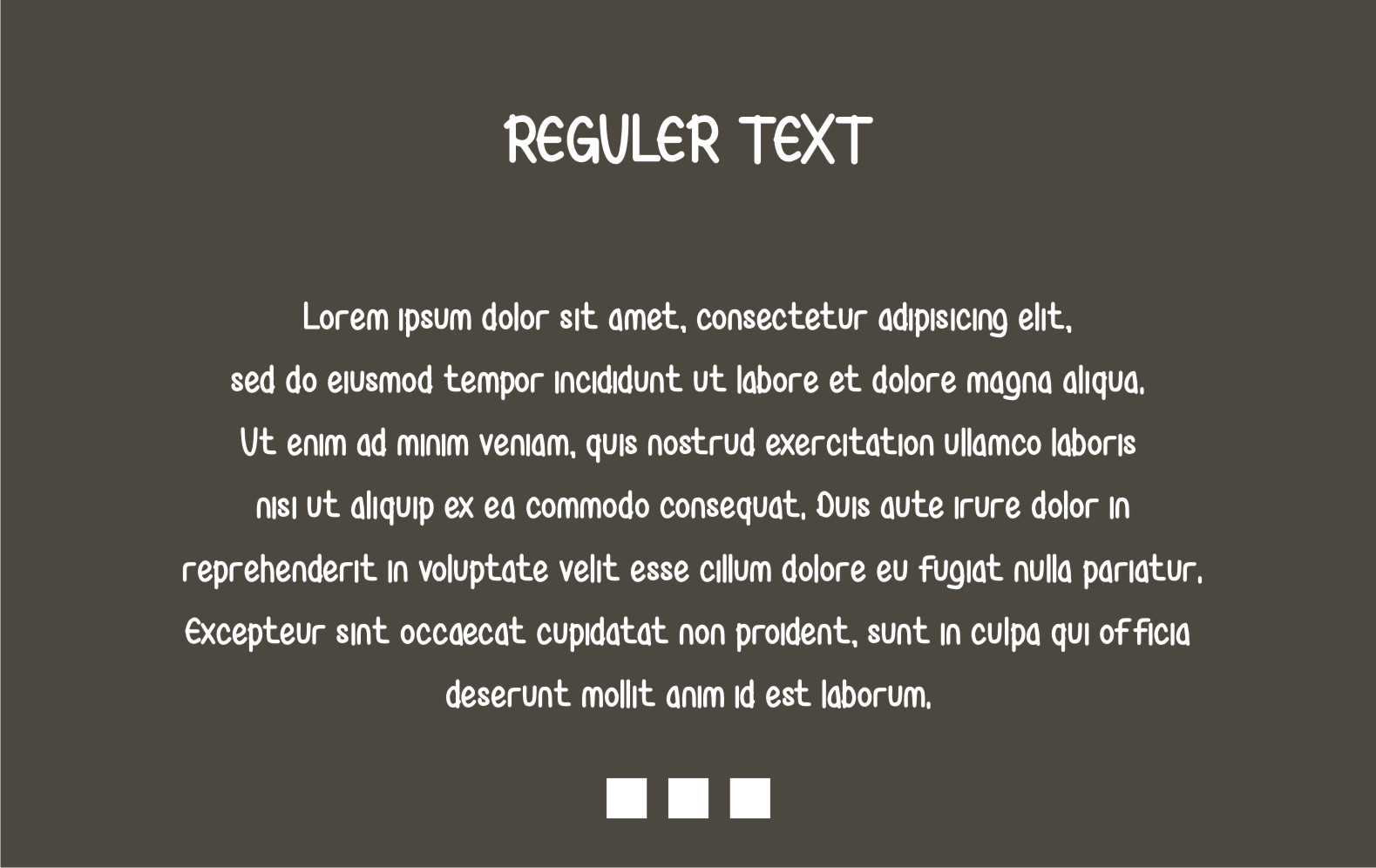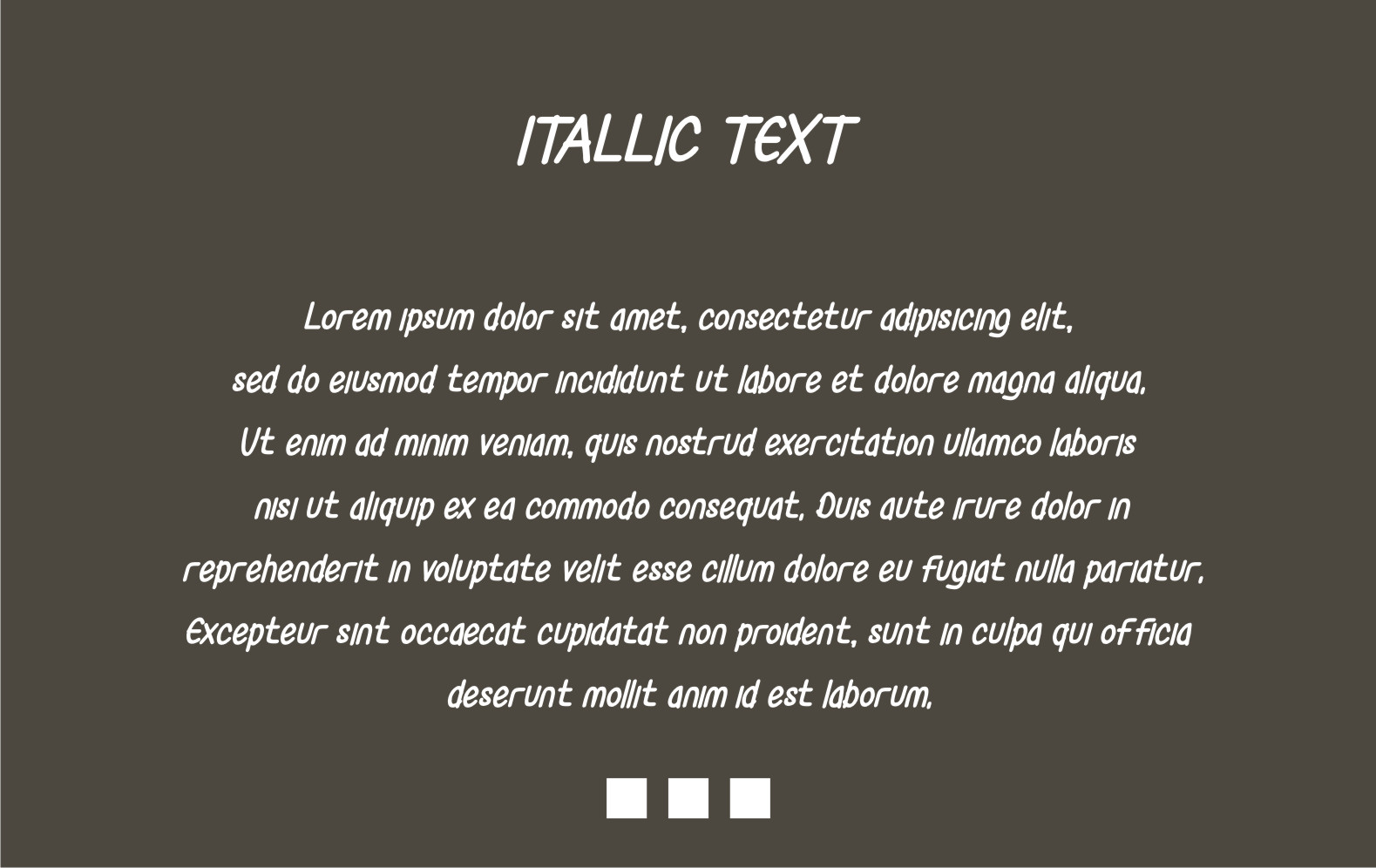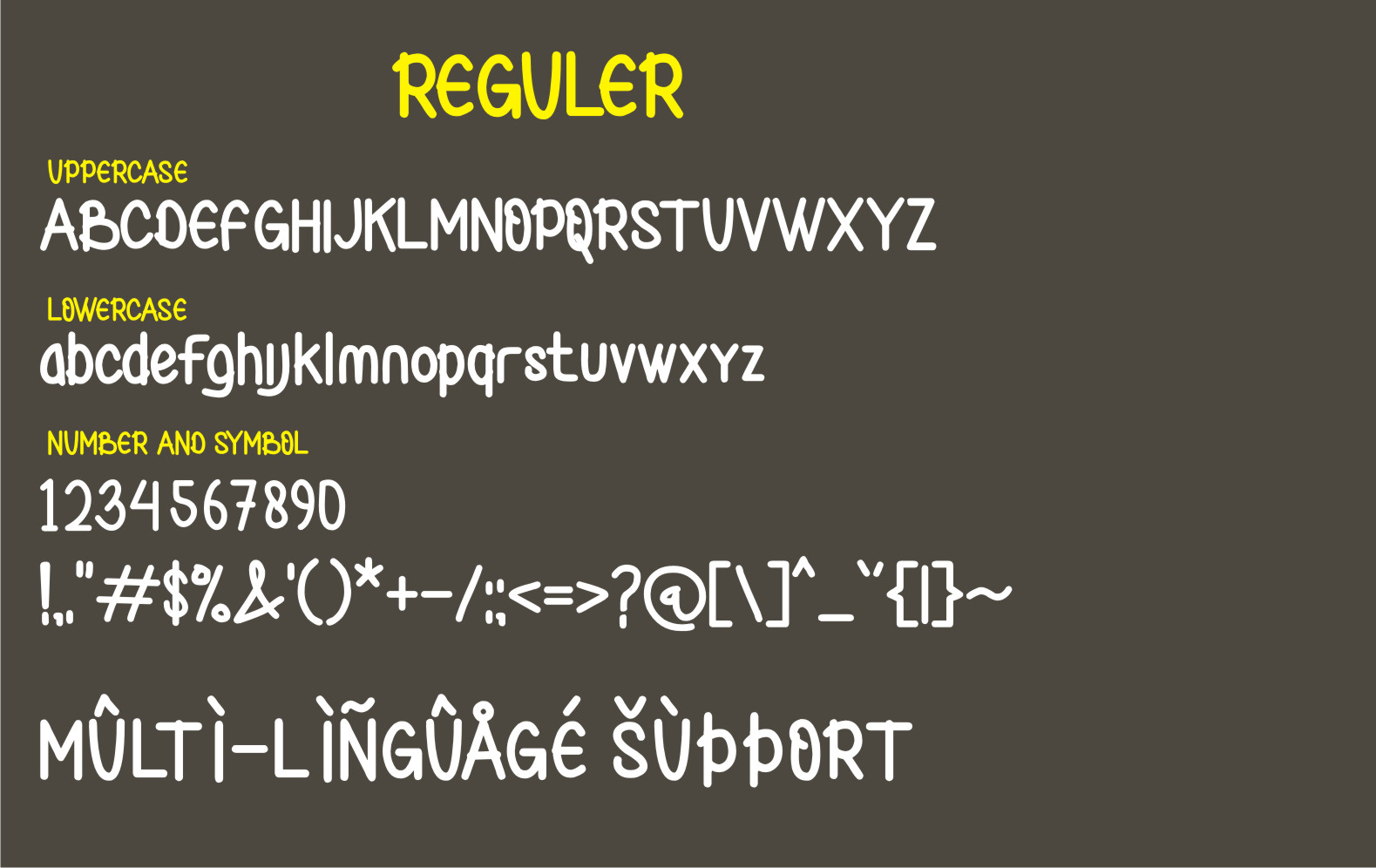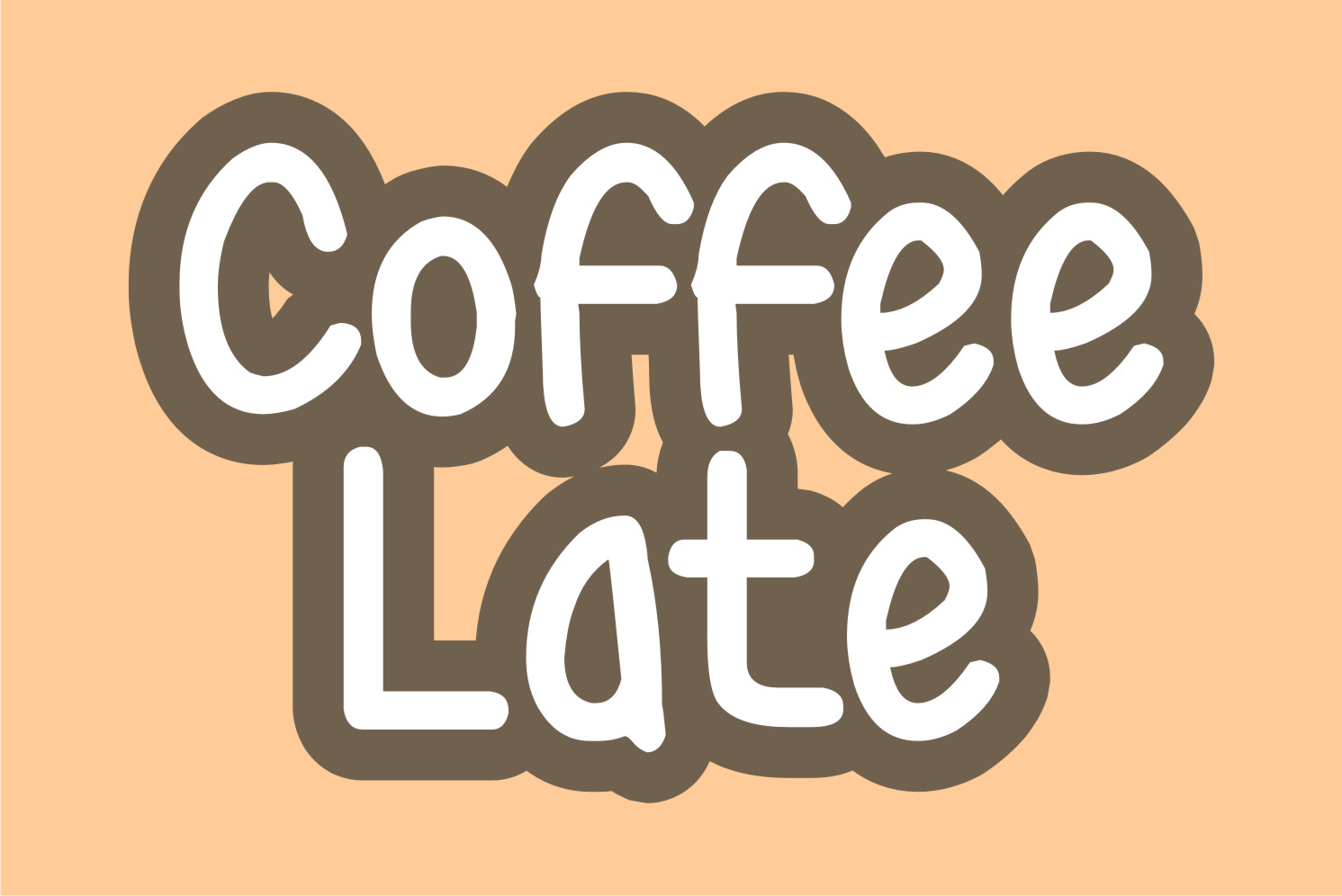
Love Send Font
Love Send Display Font
This is a cool and neat display font. This font is suitable for designs such as t-shirts, sportswear, logos, advertisements, clothing, and more.